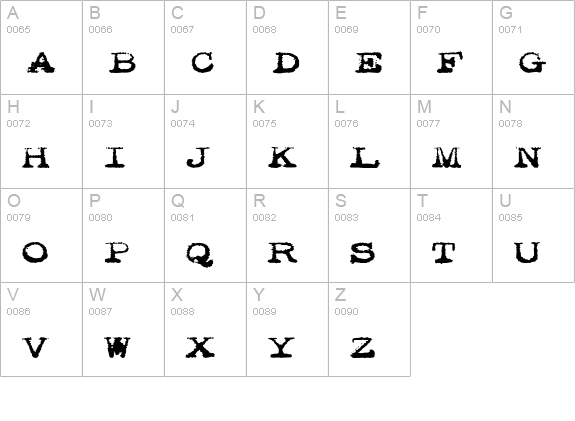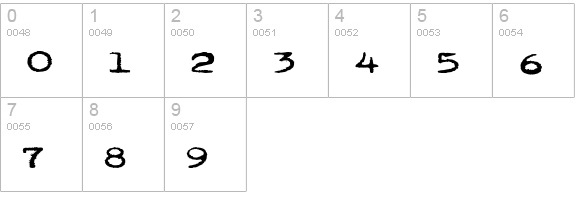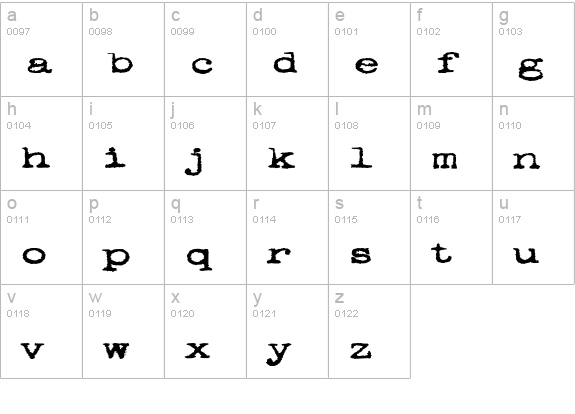
pookie Font Details
Pookie Font is a charming and playful typeface that will bring a touch of whimsy to your projects. This delightful font features rounded edges and a friendly, hand-drawn feel that is perfect for adding a fun and lighthearted vibe to your designs. Whether you're creating invitations, greeting cards, posters, or any other creative project, Pookie Font is sure to make your text stand out. What's even better is that Pookie Font is available for free download at FontsMarket.com. This means you can easily access this delightful font and add it to your collection without any cost. So go ahead and give your designs a fun and friendly touch with Pookie Font today!